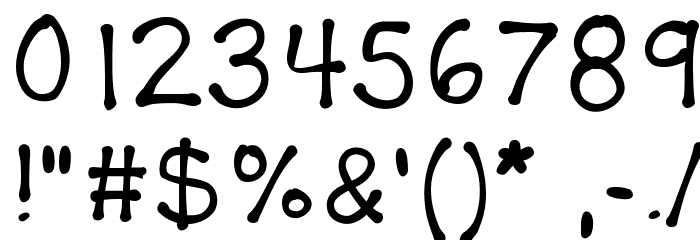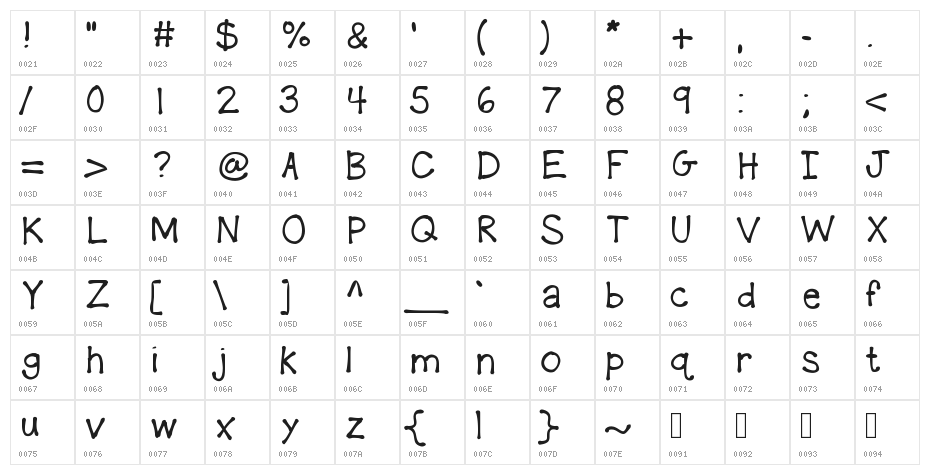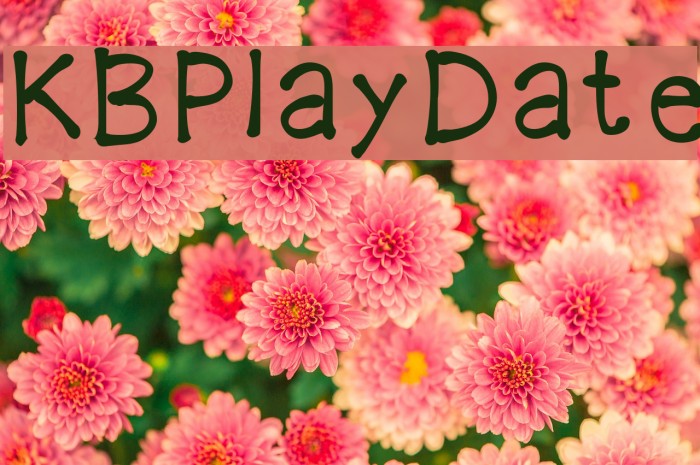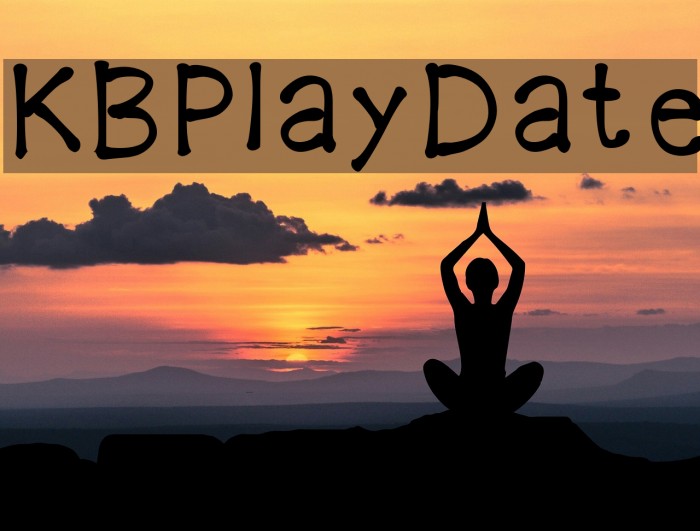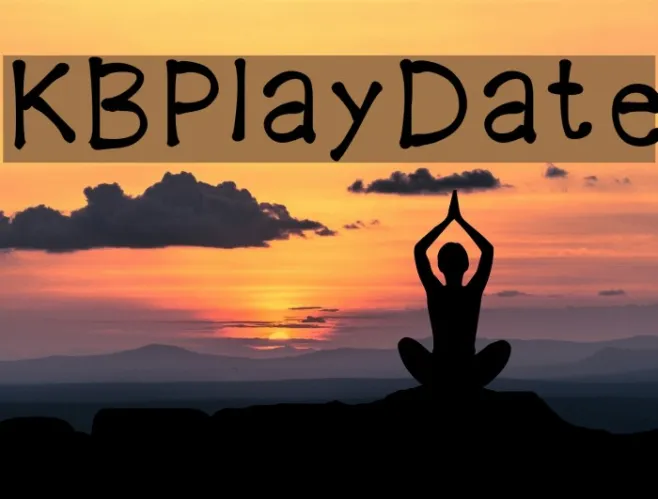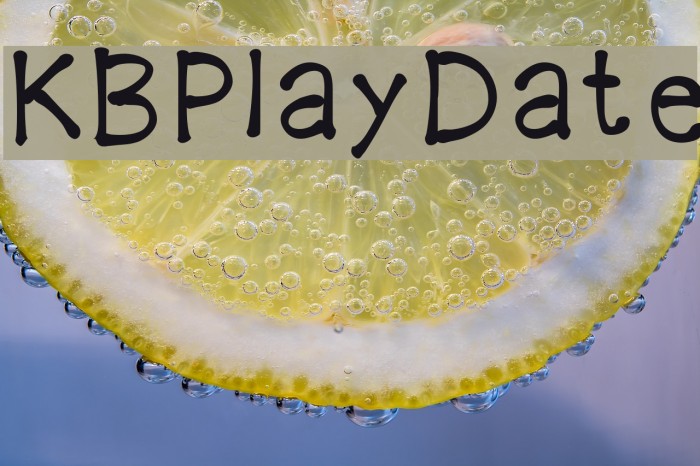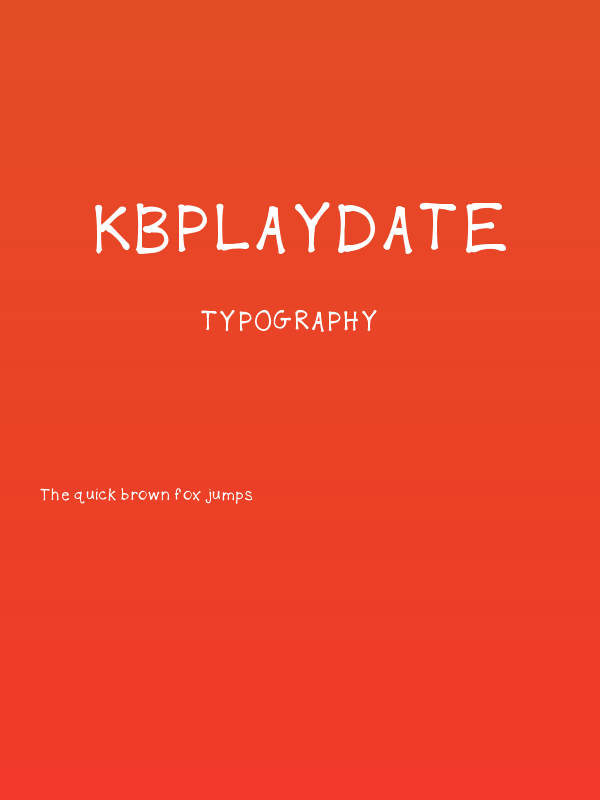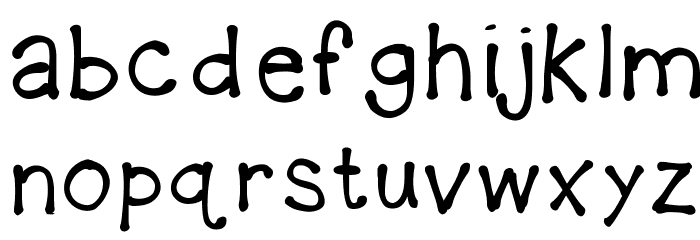
KBPlayDate Font
KBPlayDate Description
This playful and whimsical font features a handwritten style with a casual and friendly appearance. The characters are slightly irregular, giving it a natural and organic feel. The strokes are consistent in thickness, providing a uniform look across all letters and numbers. The uppercase and lowercase letters maintain a cohesive style, while the numerals and special characters complement the overall design. This font exudes a sense of fun and creativity, making it ideal for projects that require a personal touch.
| Use Case | Headlines, Logos, Informal text |
| Proposed Projects | Ideal for children's books, greeting cards, playful branding, and creative projects. |